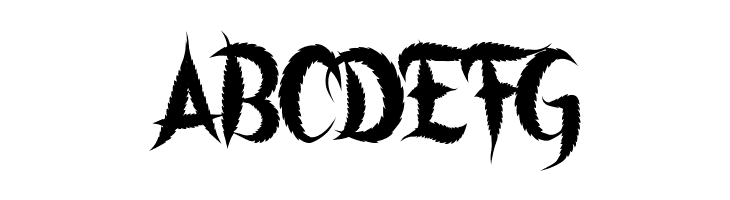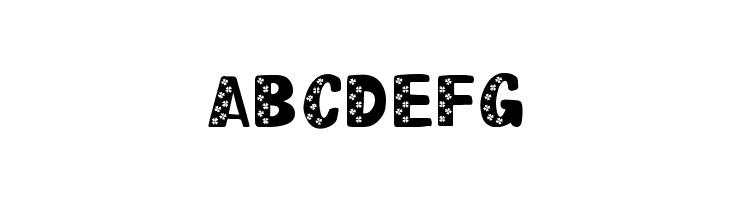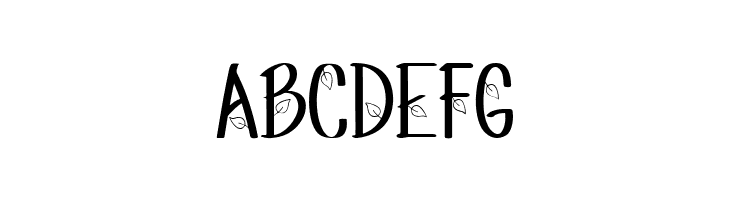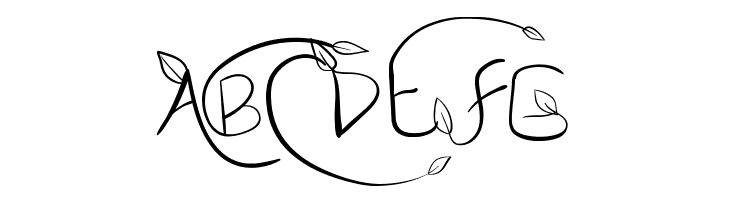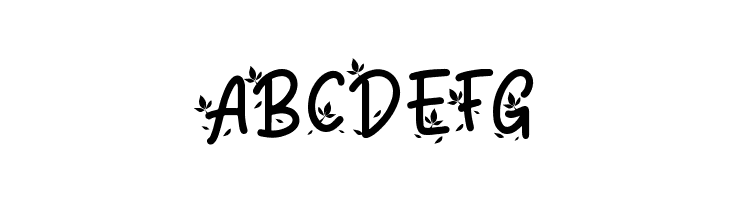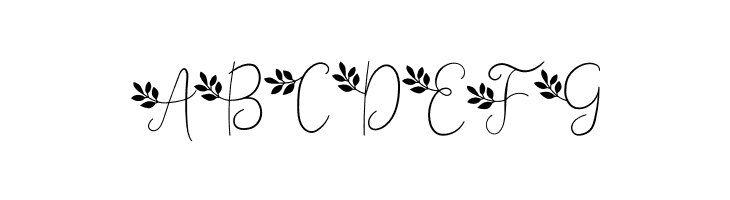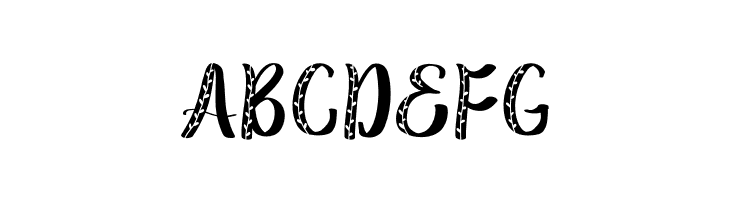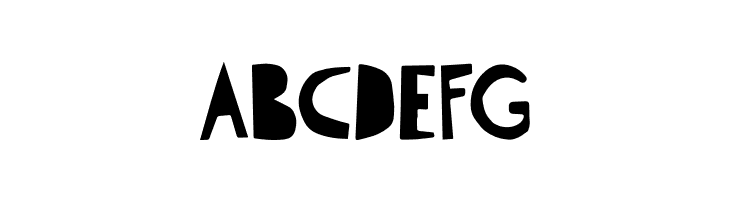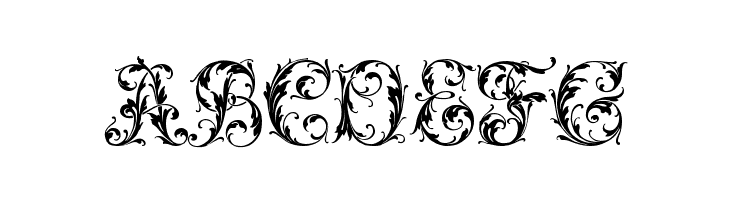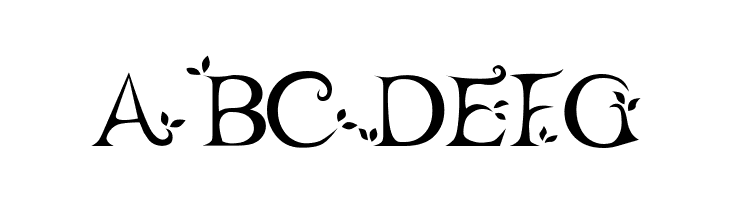
Orange Leafy Display Font
A playful, decorative font with leaf embellishments on uppercase letters.
leaf1 Font
A decorative font with leaf motifs, offering a whimsical and organic style.
Leafy font Font
A playful, leaf-inspired font with a hand-drawn, organic style.
FTF Leafy Lopstonesia Font
A decorative font with leaf and vine embellishments, offering a whimsical, organic style.
Gothic-Leaf Font
An ornate, Gothic-inspired decorative font with intricate leaf motifs.
Leafy glade Font
An ornate, nature-inspired decorative font with intricate leaf motifs.
Maple Leaf Rag Font
A bold, decorative font with characters set within maple leaf silhouettes.
LEAF Font
A bold, futuristic font with angular and geometric design elements.
Tea Leaf Caps Font
A bold, geometric font with artistic negative space.
Leafyshade Font
An ornate, leafy decorative font with intricate botanical patterns.
Leaf Typography Font
A playful, organic font with a hand-drawn, leaf-like design.
Leafs Font
A decorative font featuring leaf and floral motifs with intricate details.
MTF Base Leafy Font
An ornate, decorative font with intricate leaf embellishments.
Leaffy Font
A decorative font with intricate leaf patterns in each character.
Strong LeafRegular Font
A decorative font with characters formed by leaf-like patterns.
Leaf Crown Demo Outline Font
A decorative font with characters resembling twigs and leaves, offering a natural and whimsical style.
Magic Leaf Font
A playful, nature-inspired font with leaf motifs and elegant curves.
My Leaf Font
A whimsical, leaf-inspired font with elegant curves and natural motifs.
Leaf Crown Demo Font
A decorative, nature-inspired font with characters resembling twigs and leaves.
Happy Clover Leaf Display Font